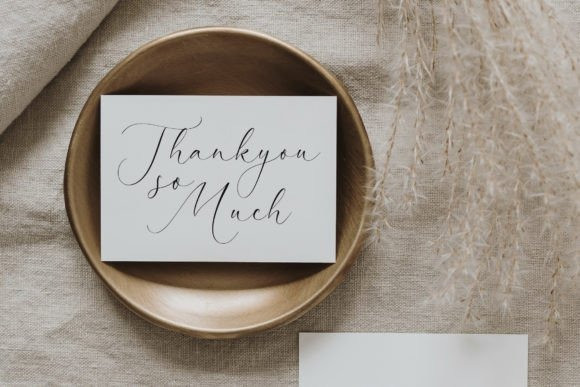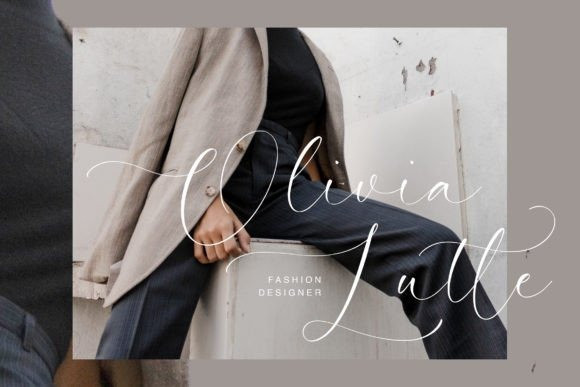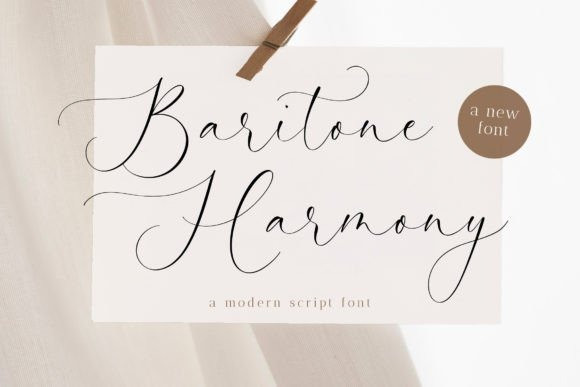
Baritone Harmony Font
Baritone Harmony Font – A Handwritten Script Font , which was created with great care and specially created for you
Baritone Harmony is perfect for product packaging, branding project, megazine, social media, wedding, or just used to express words above the background.